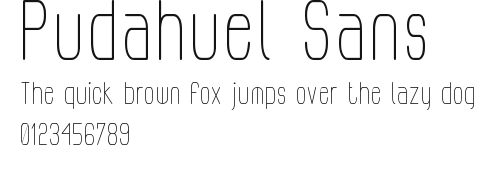
• Font Name: Pudahuel Sans
• Full Font Name: Pudahuel Sans
About Pudahuel Sans.ttf
Pudahuel Sans.ttf is a modern, elegant sans-serif font designed for ultimate readability and visual harmony. Perfect for branding, headlines, web design, and print materials.